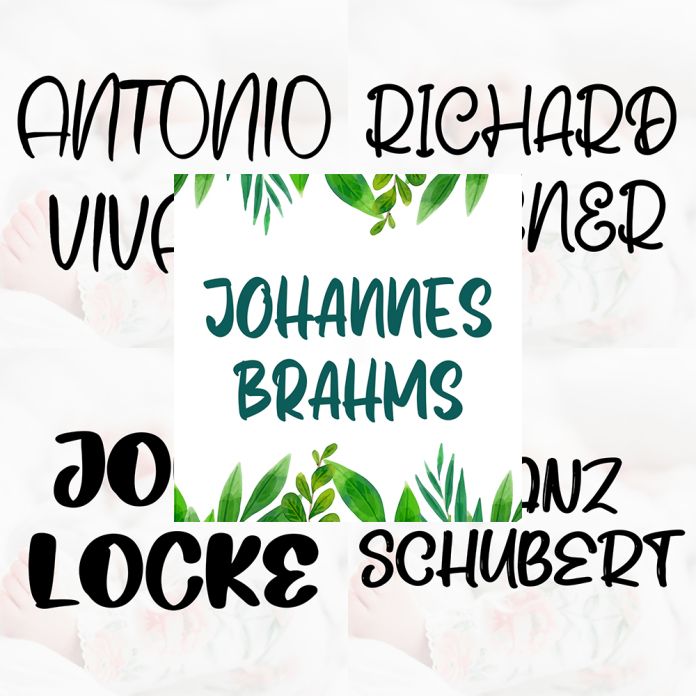
Font Collection Bundle 32
Introducing Font Collection Bundle 32
This bundle collects 5 stunning fonts for you to use This bundle includes a variety of script font styles with hundreds of glyphs, alternates, ligatures, and international language support across all your projects wherever you use.